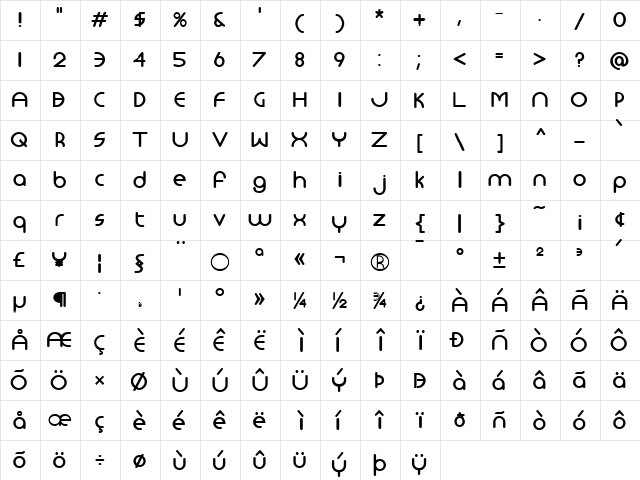
Monoglyceride DemiBold Font Preview
| Style | DemiBold |
Design Context for Monoglyceride Typeface
Monoglyceride uses fixed-width spacing throughout, giving it the structured, systematic character associated with coding environments and technical documentation. The heavy weight commands attention and anchors typographic hierarchies.
Pro Tip: Use Monoglyceride with slightly increased line-height for extended reading — fixed-width spacing can feel dense in longer passages without extra breathing room.